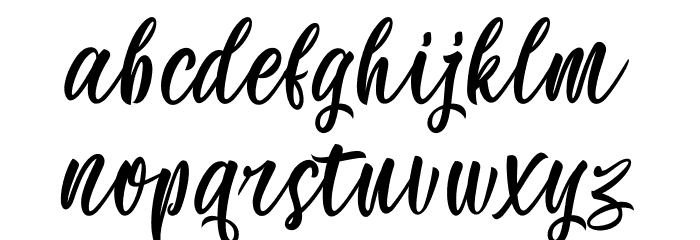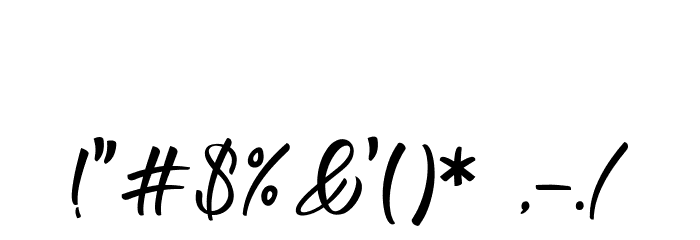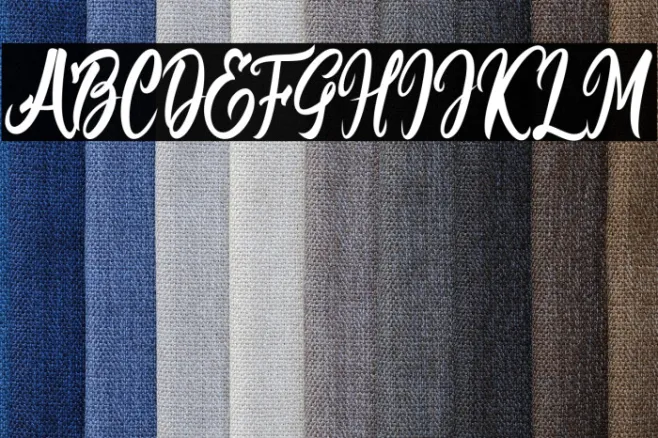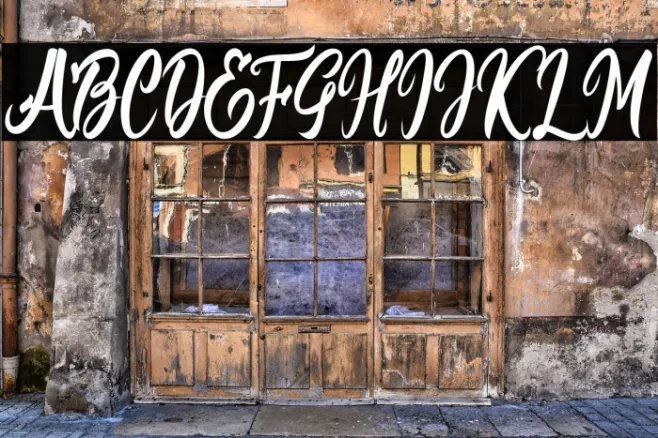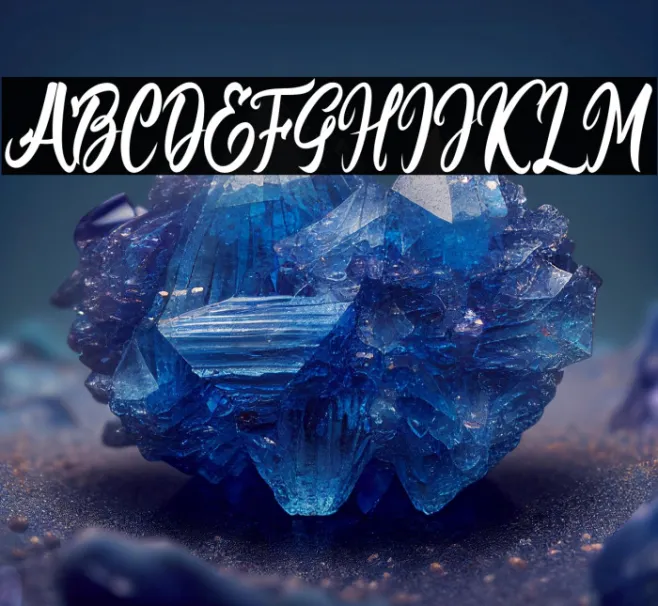
Wonderkids Font
This font features a bold and expressive script style, characterized by its flowing, cursive letterforms. The uppercase letters are particularly ornate, with sweeping curves and flourishes that give a sense of elegance and movement. The lowercase letters maintain a consistent style, with smooth connections between characters that enhance readability while preserving the decorative nature. The numbers and special characters are designed to match the overall aesthetic, ensuring a cohesive look across all text elements. This font's dynamic and artistic appearance makes it suitable for creative and eye-catching designs.
A bold, expressive script font with flowing cursive letterforms.
- Font: Wonderkids
- Proposed Projects: Ideal for wedding invitations, branding, logo design, and decorative headlines.
- Category: Script
- Use Case: Logos, Headlines, Invitations